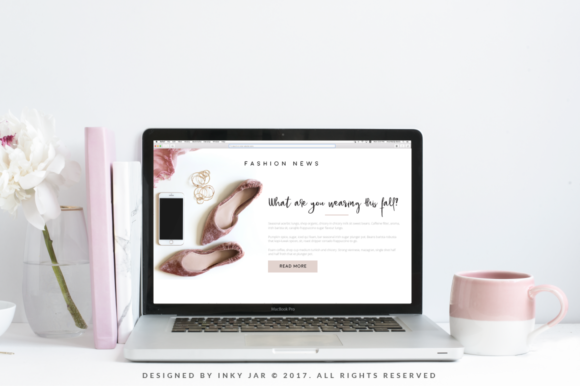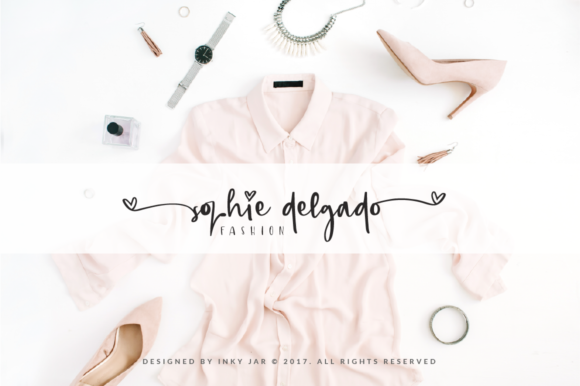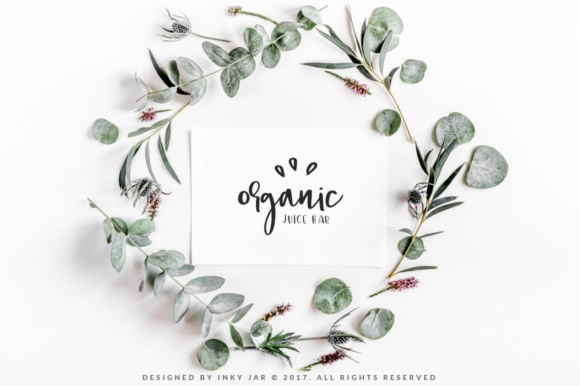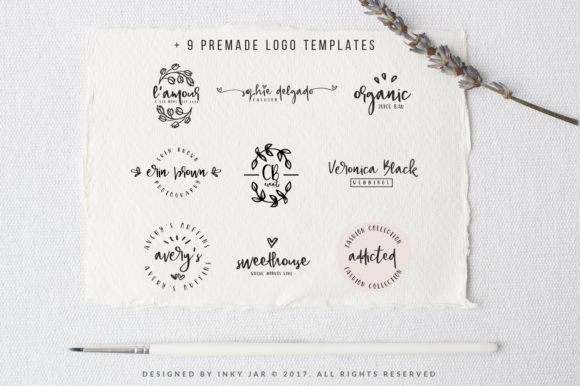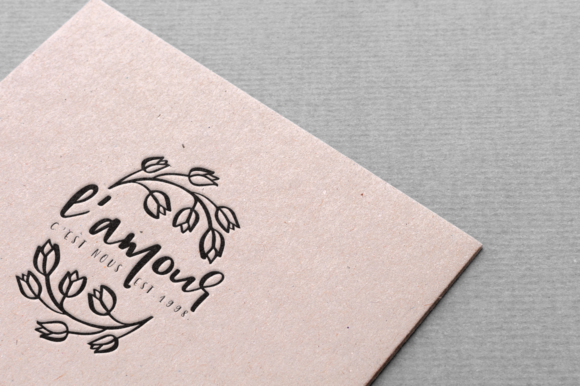
Gingerbread Duo Font: The Perfect Addition to Your Feminine Brand
Are you looking for a font that can add a touch of femininity and playfulness to your brand? Look no further than the Gingerbread Duo Font. This hand-lettered font duo is designed to bring a bouncy and whimsical feel to your designs, making it perfect for feminine brands, crafters, and designers.
What is Gingerbread Duo Font?
The Gingerbread Duo Font is a comprehensive font package that includes two fonts with lots of swashes and illustrations. The font is carefully crafted with 2 additional sets of stylistic alternates of beginning and ending letterforms, giving you a wide range of creative options. The font is also highly versatile, making it suitable for a variety of design projects, from logos and branding to packaging and marketing materials.
Key Features of Gingerbread Duo Font
- Hand-lettered font duo: The Gingerbread Duo Font is a unique and carefully crafted font duo that is designed to bring a personal touch to your designs.
- Lots of swashes and illustrations: The font includes a wide range of swashes and illustrations, giving you plenty of creative options to enhance your designs.
- 2 sets of stylistic alternates: The font includes 2 additional sets of stylistic alternates of beginning and ending letterforms, allowing you to experiment with different styles and effects.
- Perfect for feminine brands: The Gingerbread Duo Font is specifically designed with feminine brands in mind, making it an ideal choice for designers and crafters who cater to this market.
- 9 premade logo templates: The font package includes 9 premade logo templates, complete with Adobe Illustrator and Photoshop files, making it easy to get started with your design projects.
Benefits of Using Gingerbread Duo Font
The Gingerbread Duo Font offers a range of benefits for designers and crafters, including:
- Unique and creative designs: The font’s hand-lettered design and extensive swashes and illustrations allow you to create unique and creative designs that stand out from the crowd.
- Time-saving: The premade logo templates and extensive font features save you time and effort, allowing you to focus on other aspects of your design project.
- Feminine and playful feel: The font’s bouncy and whimsical design makes it perfect for feminine brands and crafters who want to add a touch of playfulness to their designs.
- Highly versatile: The font is suitable for a wide range of design projects, from logos and branding to packaging and marketing materials.
The Gingerbread Duo Font is a comprehensive font package that offers a unique and creative solution for designers and crafters. With its hand-lettered design, extensive swashes and illustrations, and premade logo templates, this font is perfect for feminine brands and crafters who want to add a touch of playfulness to their designs. Whether you’re looking to create logos, branding, packaging, or marketing materials, the Gingerbread Duo Font is an excellent choice.